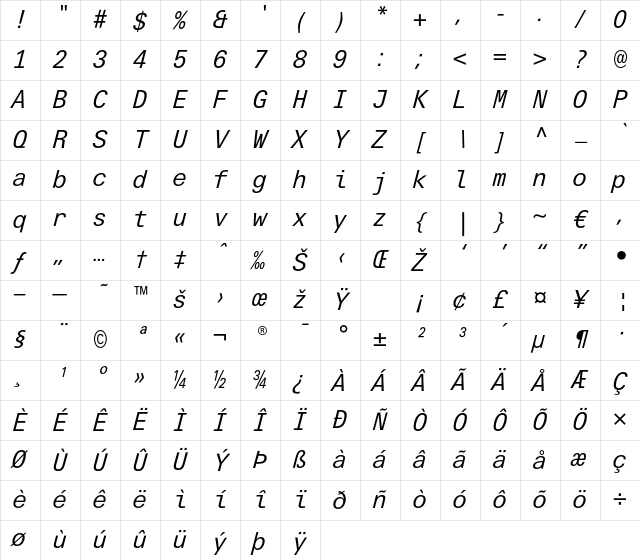
LTUnivers Typewriter Italic
Style: Typewriter Italic
Complete LTUnivers Typewriter Italic glyph index. Displaying only characters natively supported by LTUnivers Typewriter Italic font.
Design Context for LTUnivers
LTUnivers uses fixed-width spacing throughout, giving it the structured, systematic character associated with coding environments and technical documentation. The slanted form adds forward momentum and visual energy.